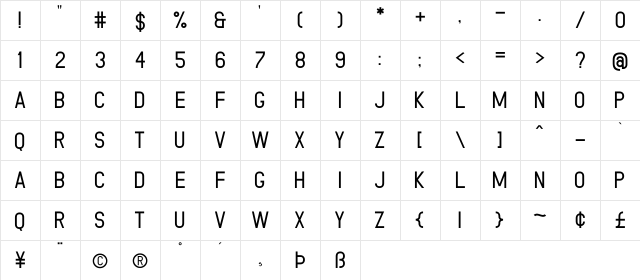
Grand Aprilliant Sans Black
Design Context for Grand Aprilliant Sans Typeface
Grand Aprilliant Sans is a composed and adaptable typeface that performs quietly and consistently across a wide range of design contexts.
Pro Tip: Use Grand Aprilliant Sans in both headline and body roles to test its range before committing to a single application.